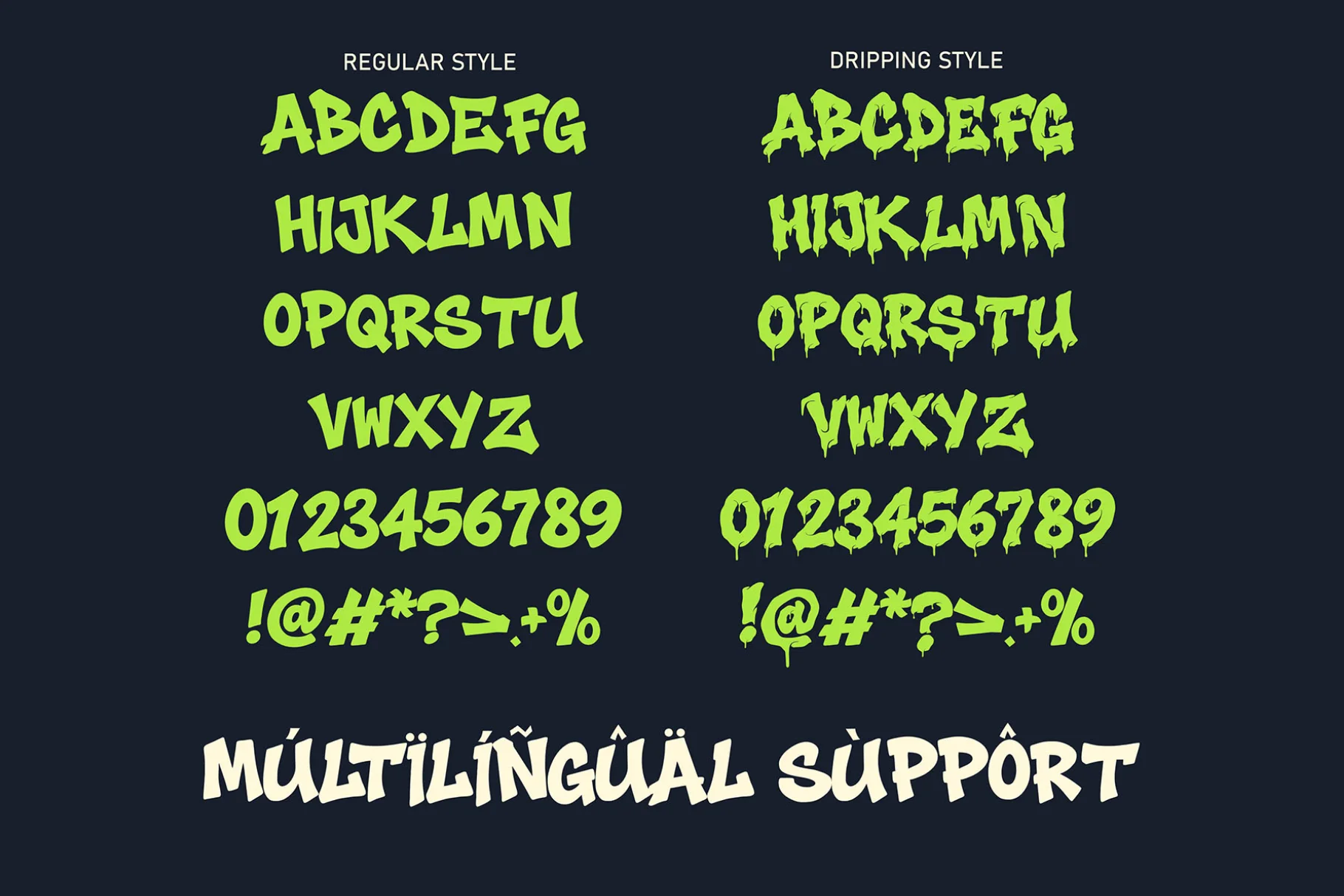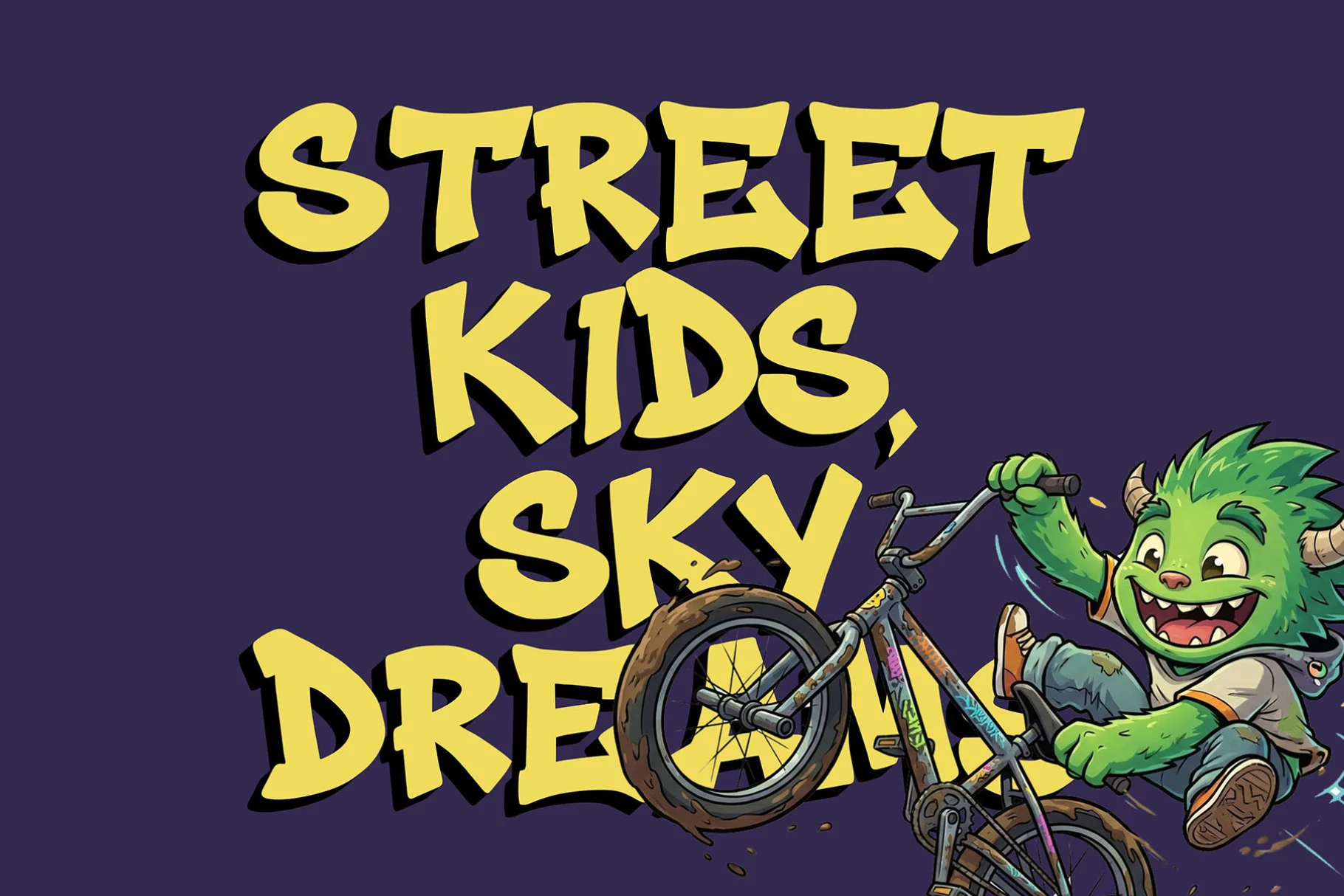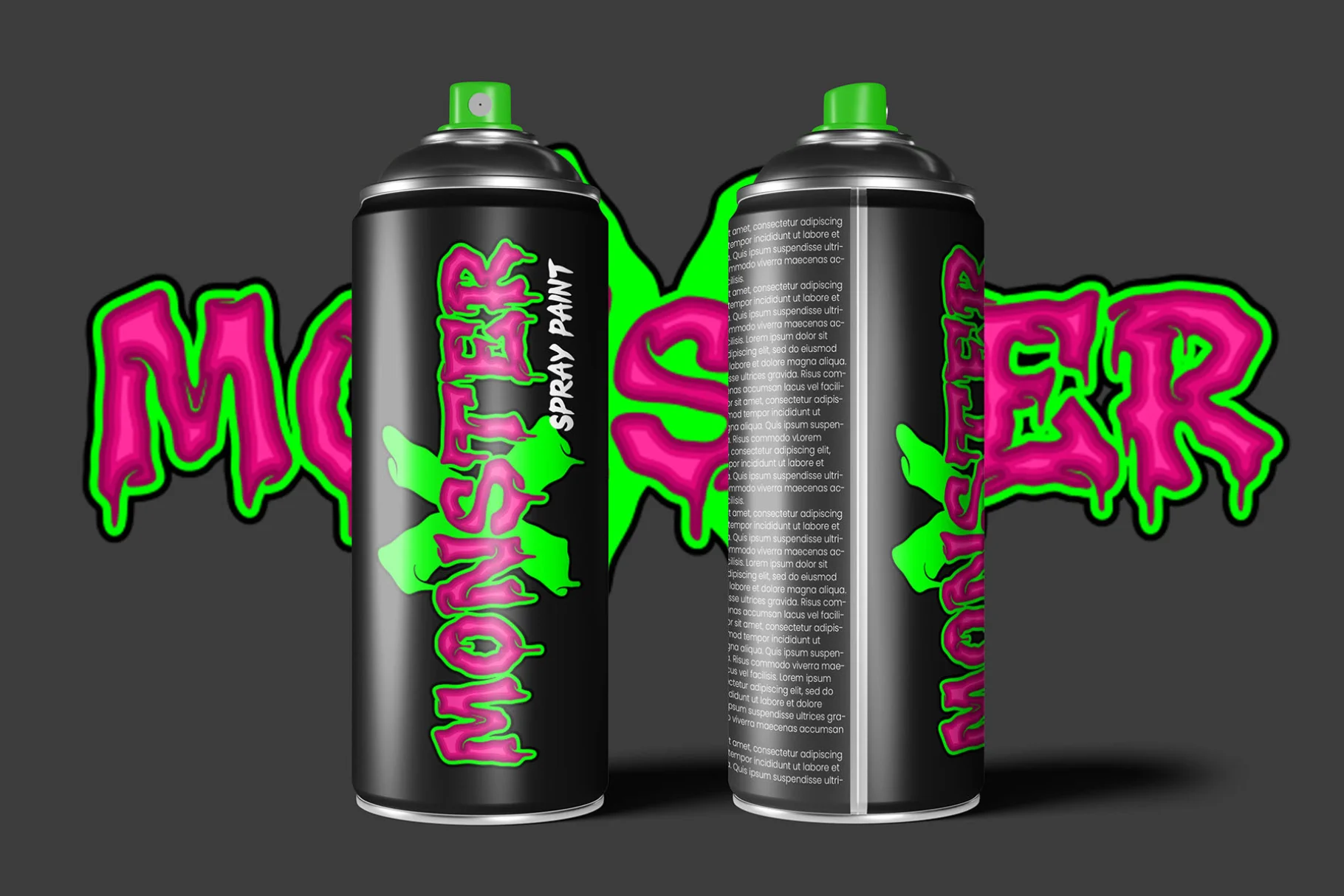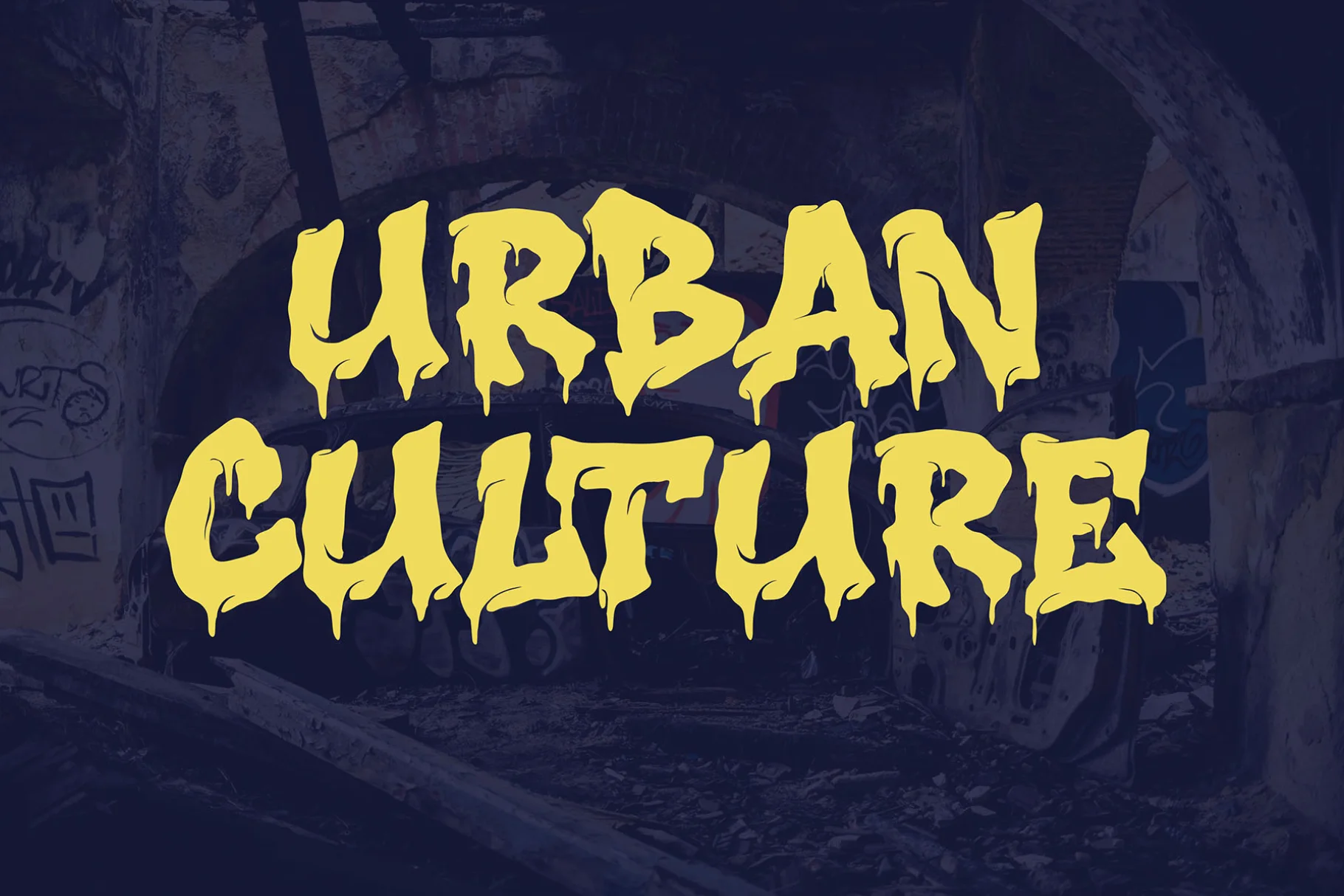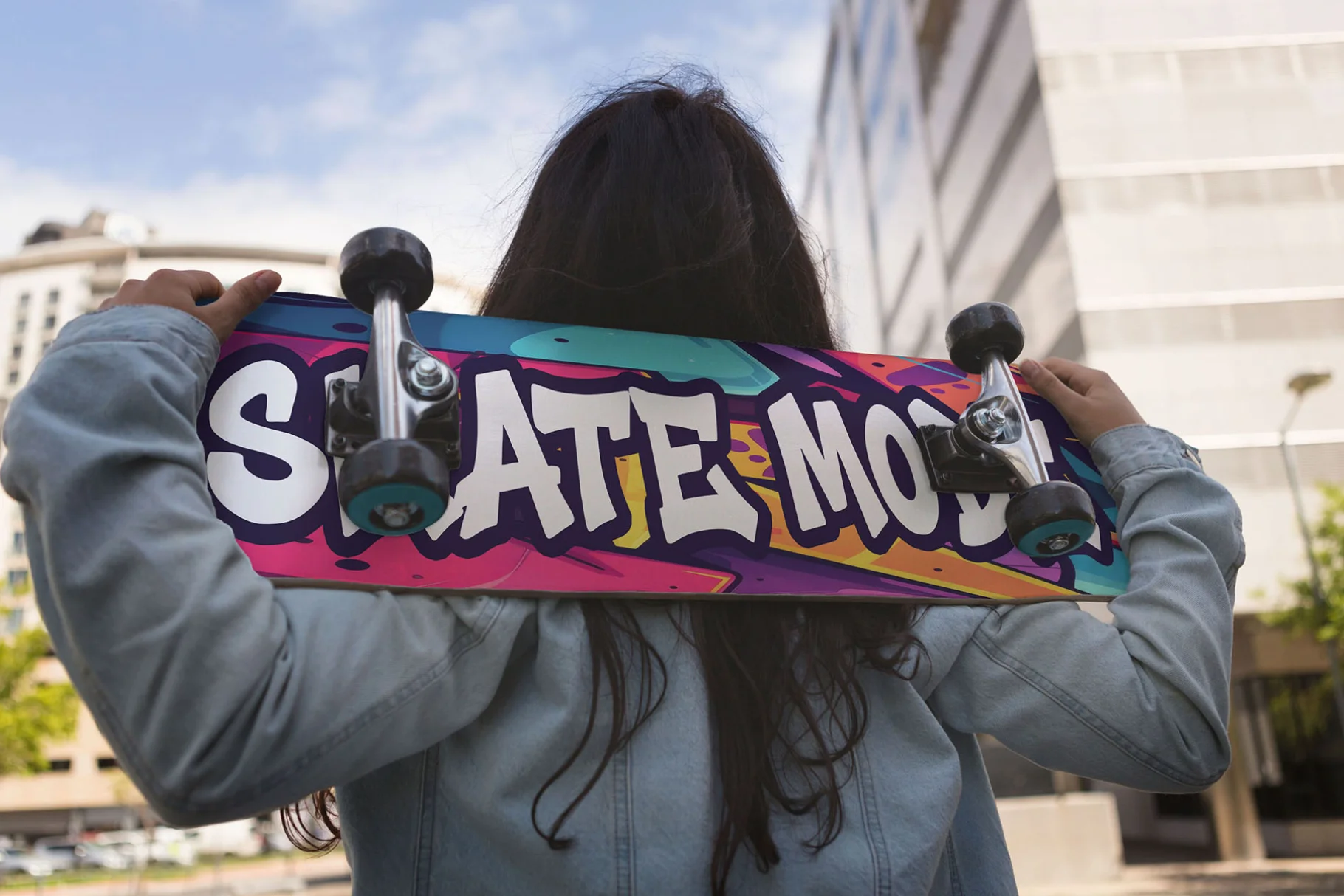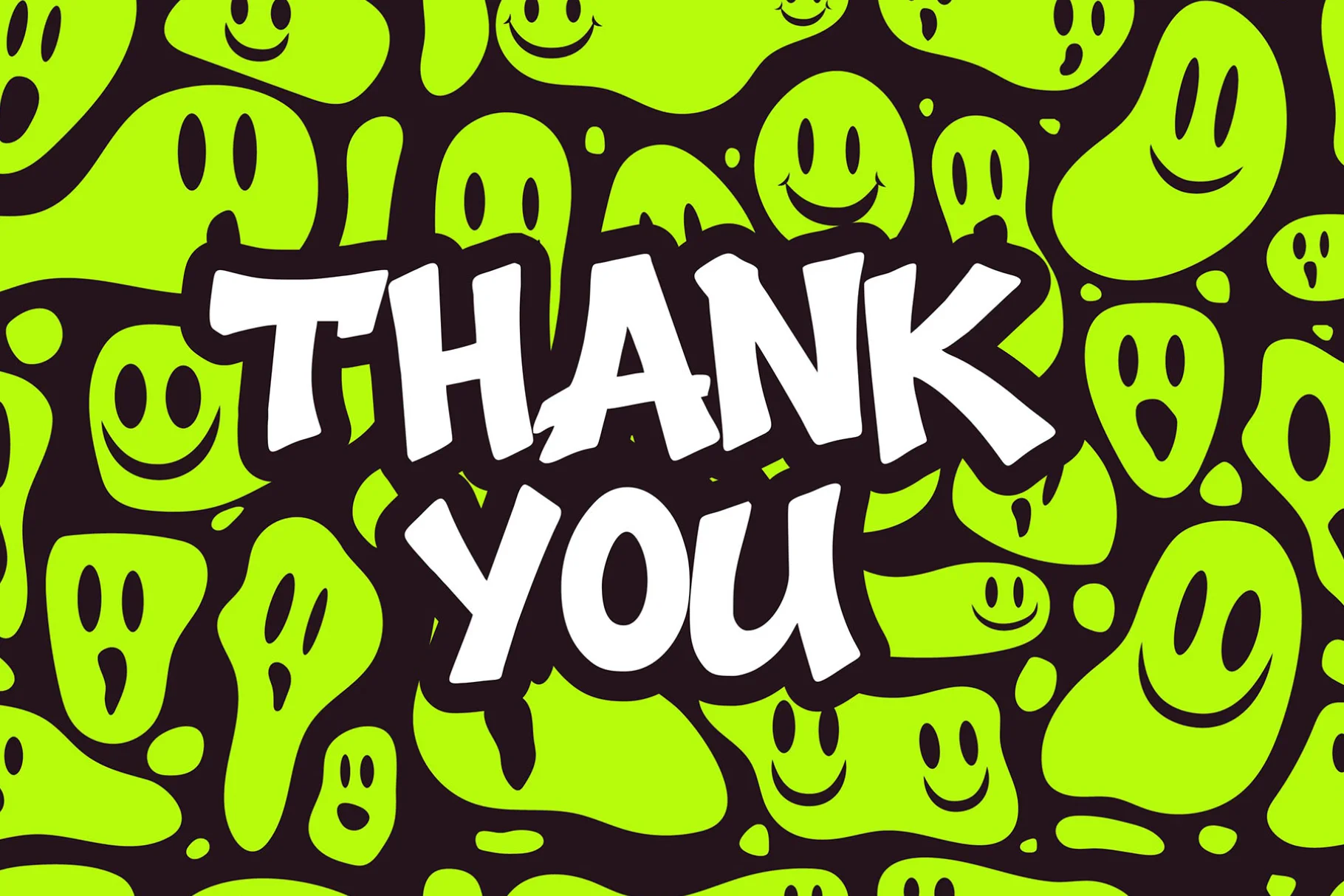
Grime Slime – Dripping Graffiti Font for Bold Street Design
Typography is one of the strongest visual tools to express attitude and personality. Grime Slime – Dripping Graffiti Font is created to bring raw street energy into your designs. This dripping graffiti font captures the authentic feel of spray paint, dripping ink, and urban expression, making it perfect for designers who want bold, rebellious, and eye-catching visuals.
Whether you are creating street posters, music covers, urban branding, or edgy social media graphics, this dripping graffiti font delivers impact instantly.
Dripping Graffiti Font with Raw Urban Energy
Grime Slime stands out as a dripping graffiti font that embraces imperfection and creativity. Each letter is designed with natural drip effects, mimicking real spray paint on walls. This creates a strong street vibe that feels authentic and alive.
Unlike clean corporate fonts, this dripping graffiti font thrives in expressive environments where bold visuals matter. It’s ideal for urban campaigns, underground events, and designs that demand attention.
Key Features of Grime Slime – Dripping Graffiti Font
To help you maximize creativity, here are the powerful features included in this dripping graffiti font:
- Uppercase, Lowercase, Numbers, Punctuations
- Multilingual Support for global projects
- Authentic Dripping Effect for street-style visuals
- Bold and Expressive Letterforms
- Perfect for Display Use and Headlines
This dripping graffiti font is fully equipped for both digital and print design workflows.
Why Designers Love This Dripping Graffiti Font
Designers love Grime Slime because it offers a unique combination of style and usability. This dripping graffiti font is not just visually striking but also practical for professional use.
Here’s why creatives choose it:
- Instantly creates urban and street-style aesthetics
- Adds personality and edge to any project
- Works perfectly for music, gaming, and youth branding
- Comes with multiple styles for flexibility
This dripping graffiti font helps designers stand out in competitive creative industries.
Perfect Use Cases for Dripping Graffiti Font
Grime Slime is a dripping graffiti font that shines in multiple creative scenarios.
Use it for:
- Streetwear branding and urban campaigns
- Music album covers and hip-hop visuals
- Gaming titles and esports graphics
- Posters, flyers, and event promotions
- Social media content with bold personality
No matter the platform, this dripping graffiti font ensures your message is loud, expressive, and unforgettable.
Font Pairing Ideas for Dripping Graffiti Font
To elevate your design, pairing is essential. Grime Slime works perfectly with other graffiti and urban fonts:
These combinations help balance the boldness of this dripping graffiti font while keeping the street aesthetic strong.
- Styles: Regular & Dripping
- Character Set: Uppercase, Lowercase, Numbers, Punctuation
- Multilingual Support: Yes
Why This Dripping Graffiti Font Stands Out
Grime Slime is not just another graffiti font—it is a bold artistic statement. As a dripping graffiti font, it captures the essence of street culture, rebellion, and creativity.
Its dripping effect adds motion and texture, making designs feel alive. Whether used in branding, posters, or digital media, this font ensures your visuals never go unnoticed.
Grime Slime – Dripping Graffiti Font is the perfect choice for designers who want to break the rules and create something bold. With its raw dripping style, multilingual support, and versatile file formats, it delivers both creativity and functionality.
If you want your designs to feel urban, expressive, and powerful, this dripping graffiti font is your ultimate tool. Don’t just design—make a statement with Grime Slime.